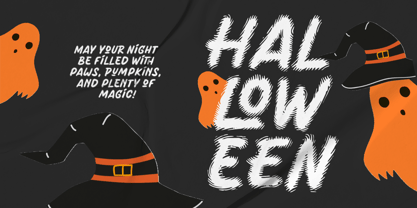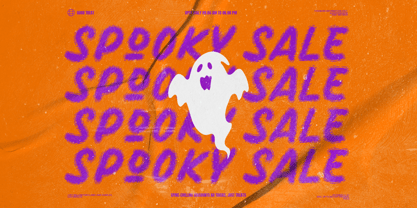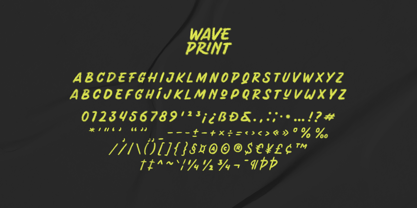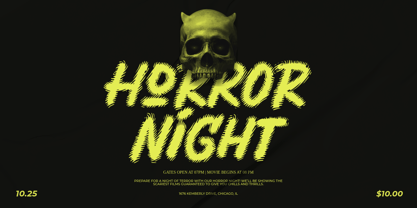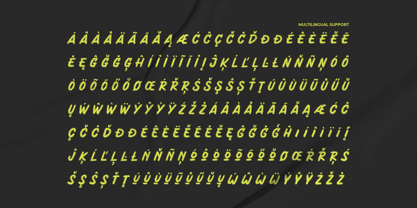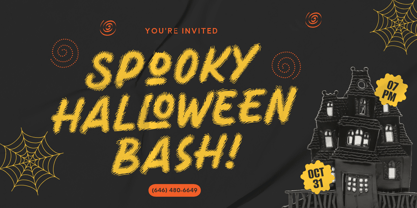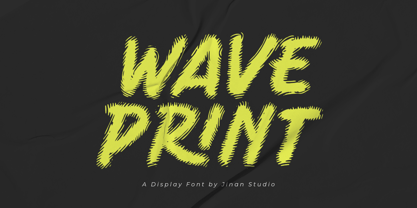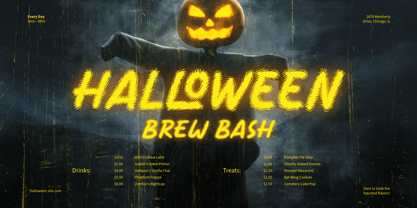
Waveprint
by Jinan Studio
The Waveprint Font Family was designed by Ainun Jinan and published by Jinan Studio. Waveprint contains 1 styles.
Waveprint is a bold and energetic display font, designed to bring a chilling yet playful touch to your Halloween projects. With its scratchy brush strokes and jagged textures, this font feels alive—perfect for evoking spooky vibes, eerie posters, haunted party invites, creepy merchandise, and bold seasonal headlines.
Whether you’re crafting a horror movie title, a haunted house flyer, or any design that demands a strikingly scary look, Wave Print will instantly capture attention with its unique hand-drawn style.
Features
• A set of uppercase and lowercase glyphs
• Number, symbol, and punctuation
• Multilingual Support
Jinan Studio, founded by Ainun Jinan, is a font studio based in Makassar City, Indonesia. With a focus on handmade typography. With three years of experience, the studio creates unique, visually captivating, and expressive fonts that can be used in various design projects. Their commitment to craftsmanship and attention to detail sets them apart, while their personalized approach and dedication to customer satisfaction make them a reliable choice for clients.